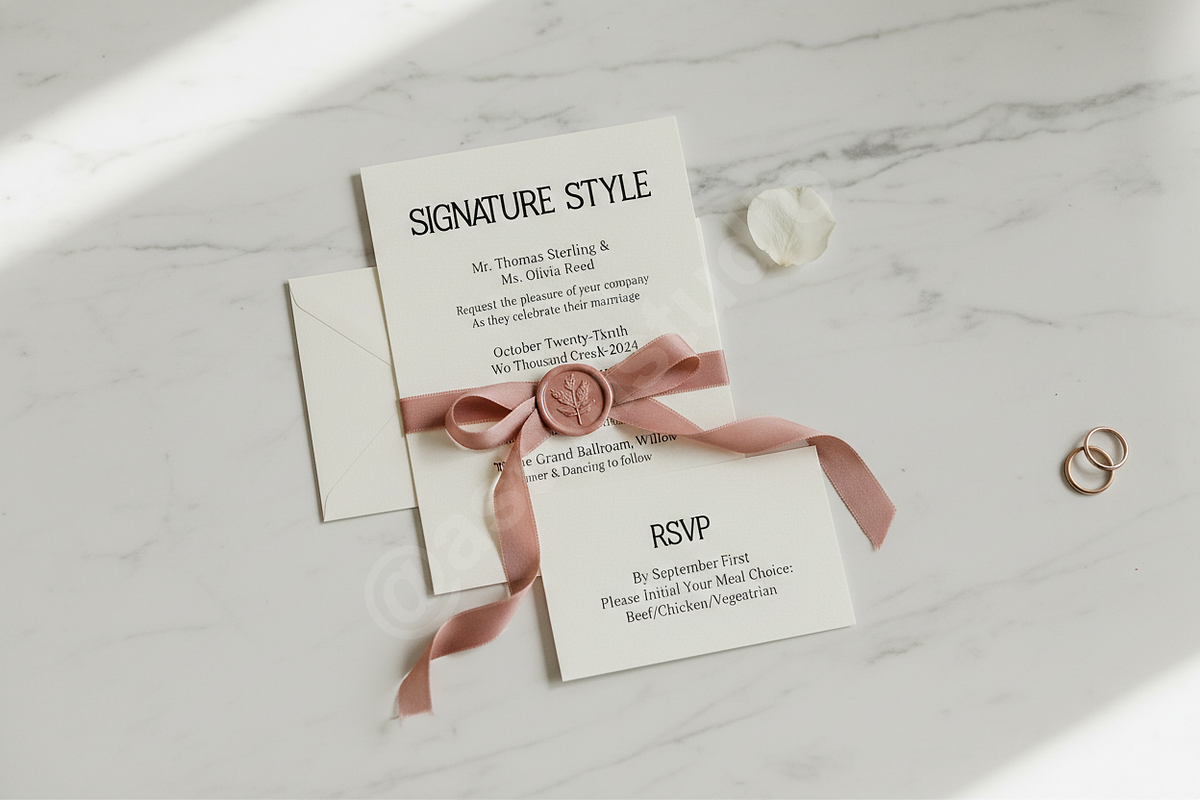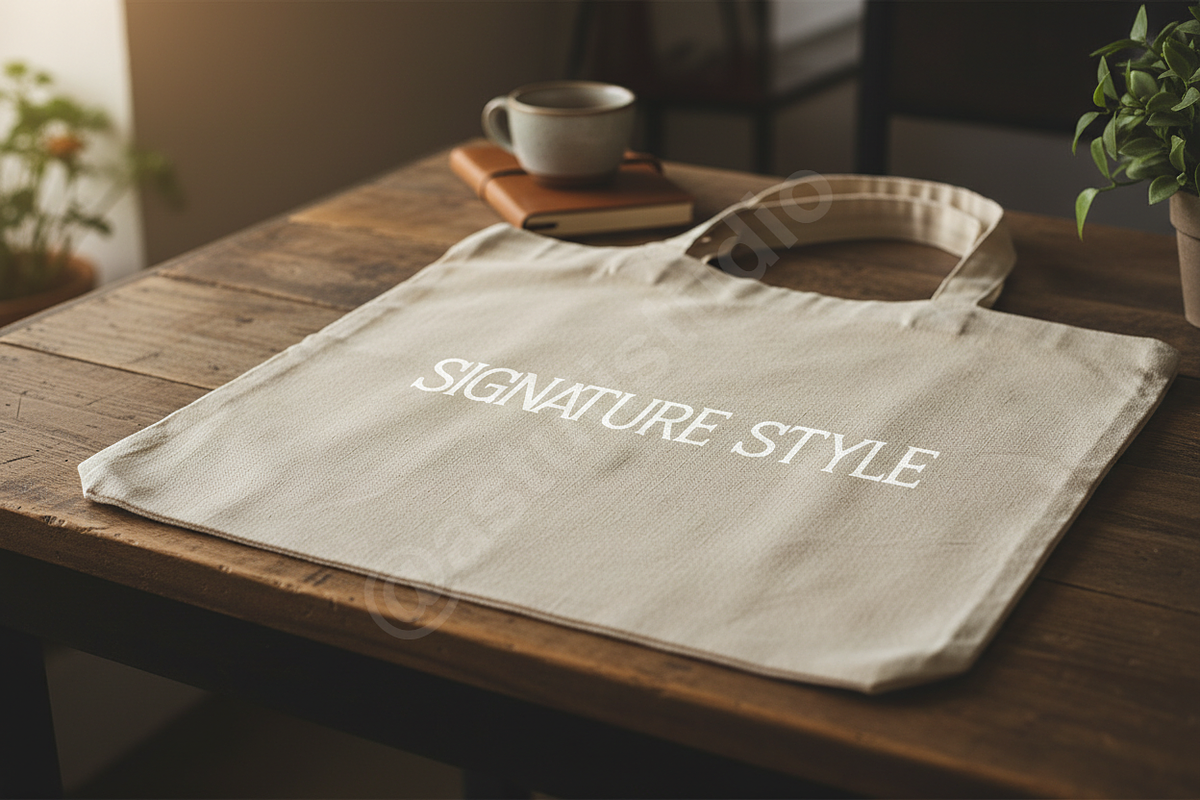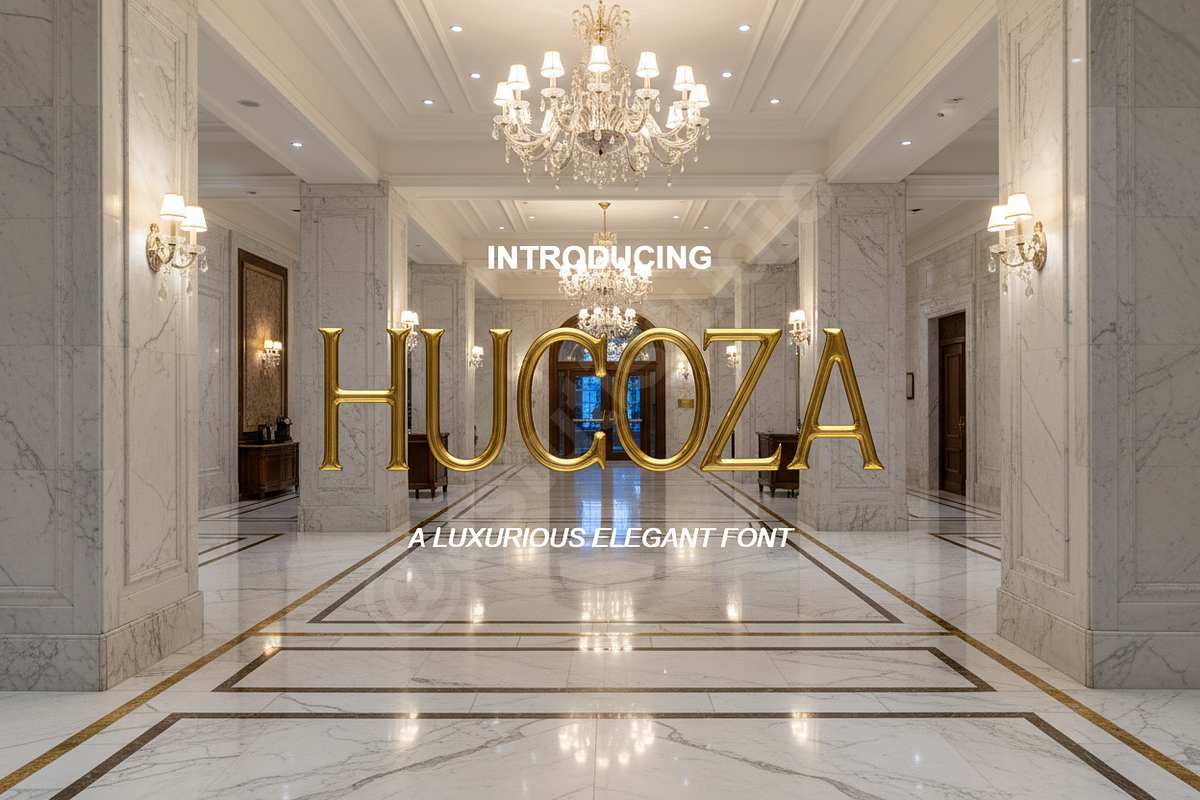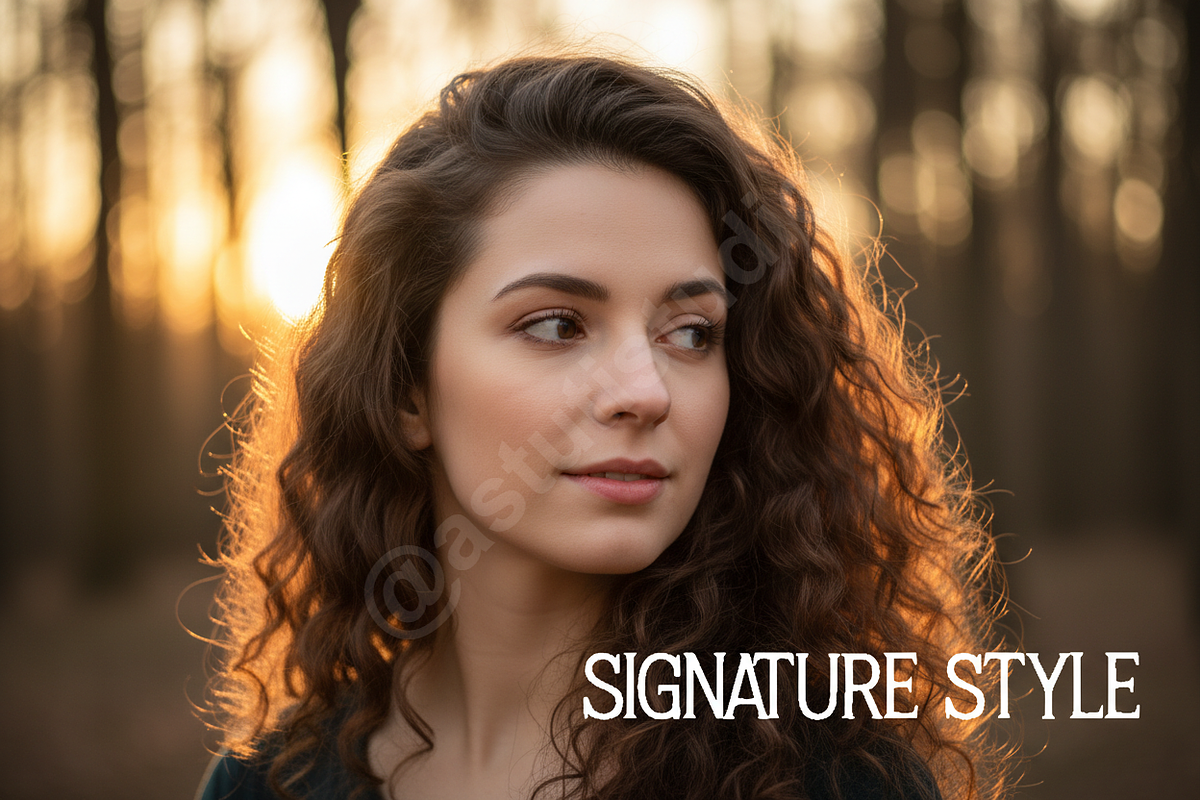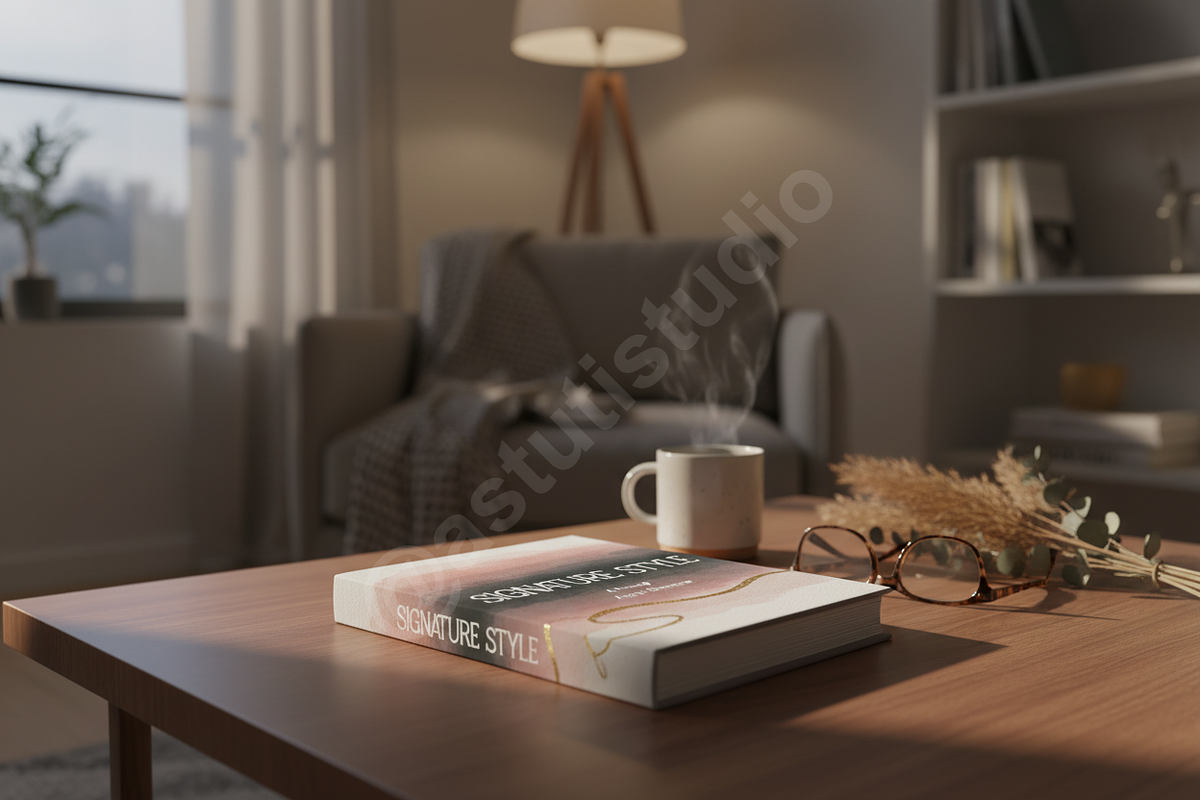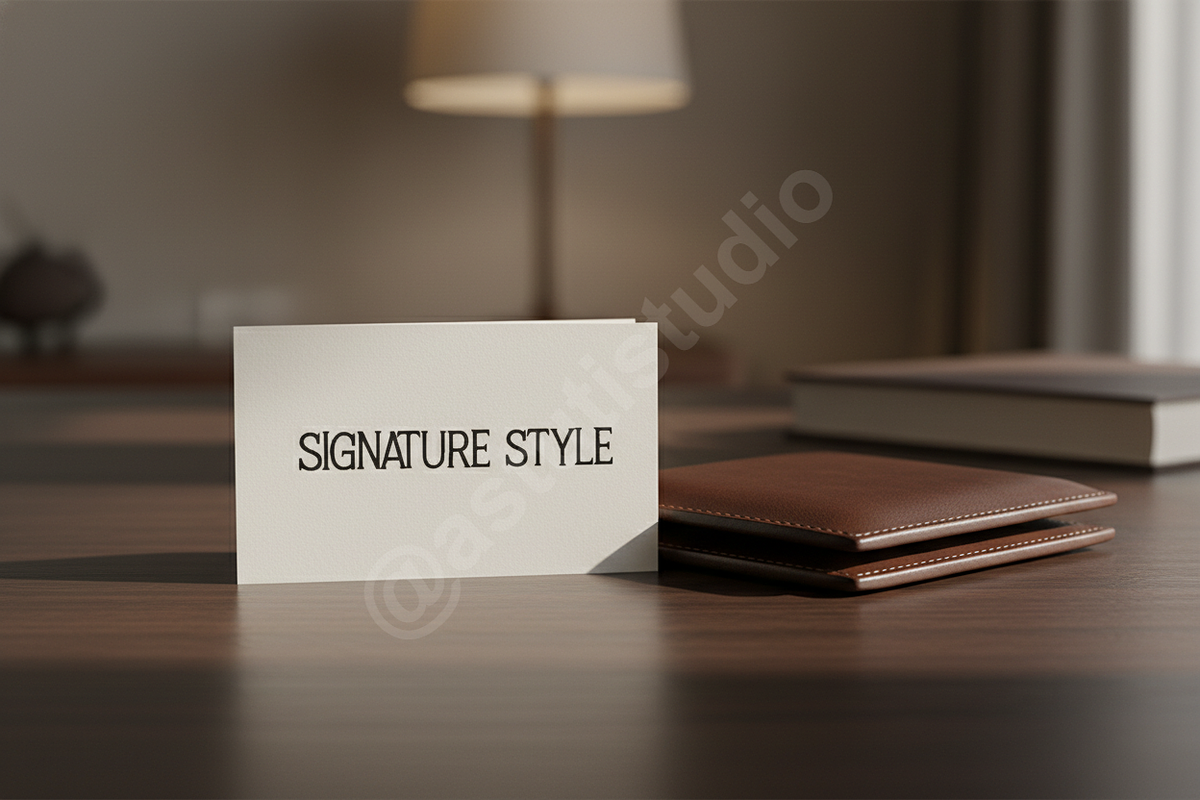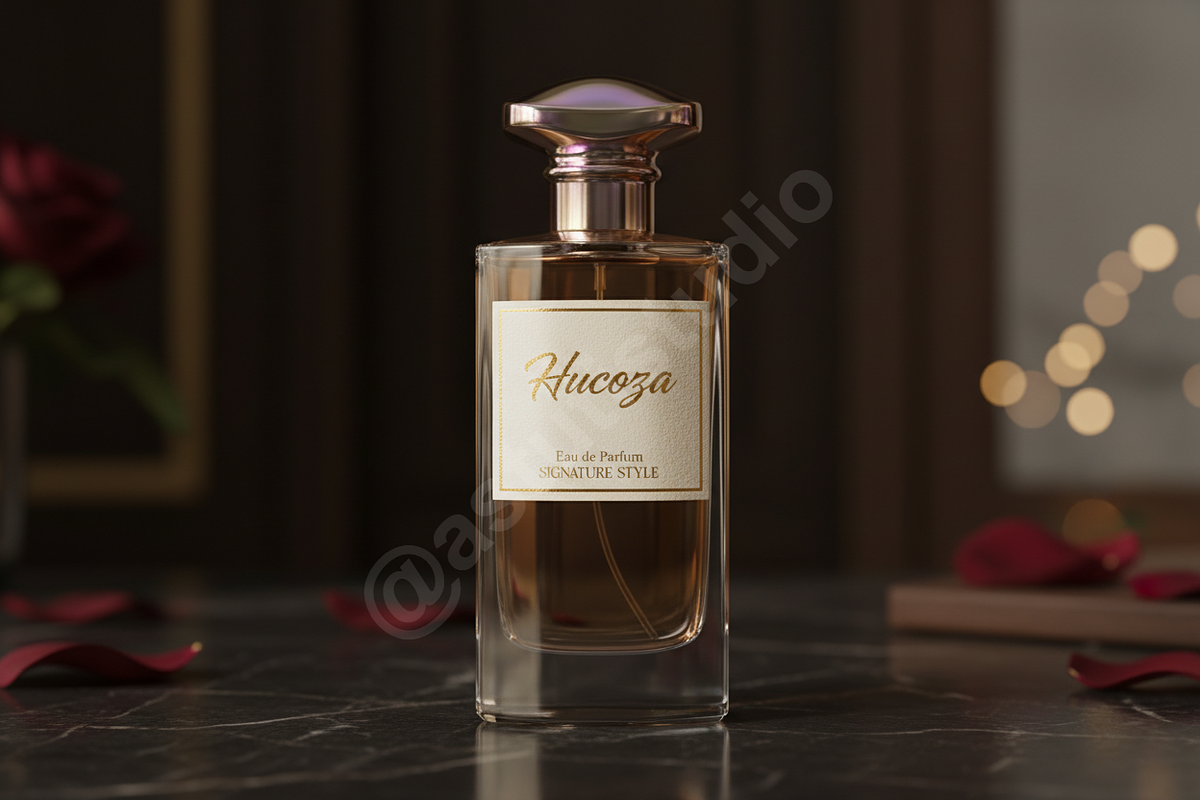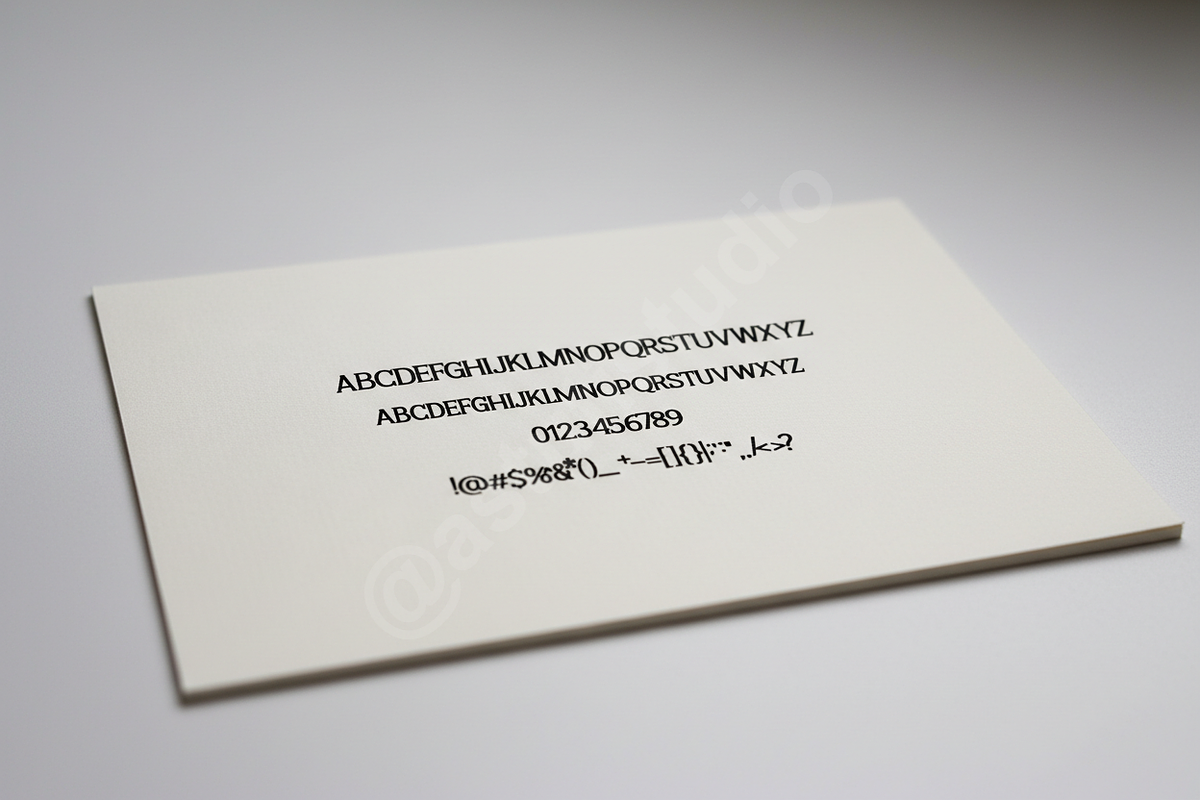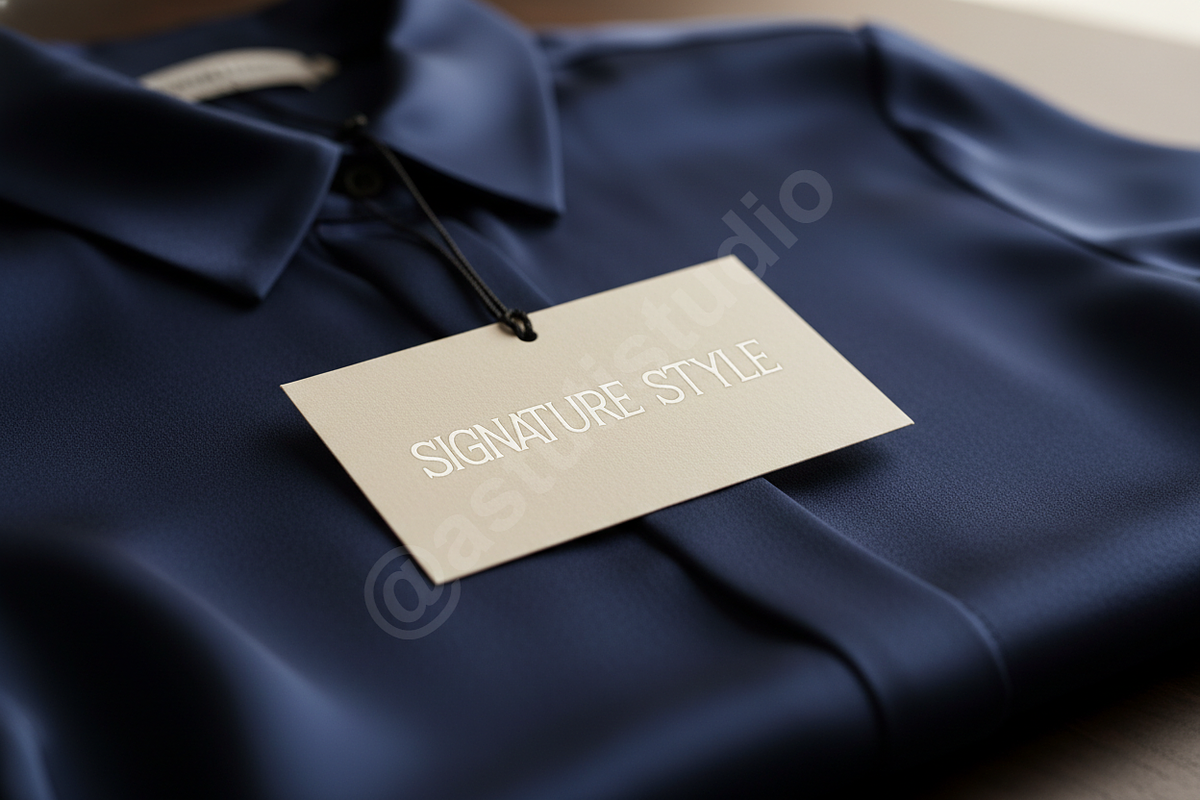
Hucoza - Modern Luxury Serif Font
HUCOZA | AN ELEGANT DISPLAY SERIF
Hucoza is a premium serif font designed for sophistication and high-end aesthetics. With its refined curves and balanced proportions, it brings a touch of timeless elegance to any creative project. This typeface was meticulously crafted to bridge the gap between classic editorial style and modern minimalist branding.
- Luxury branding and identity systems
- High-fashion editorial layouts and magazine covers
- Sophisticated social media content and advertising
- Premium packaging and stationery design
- Minimalist website headers and wedding invitations
- Distinctive high-contrast letterforms
- Extensive collection of ligatures for custom looks
- Stylistic alternates for creative flexibility
- Precise kerning for professional typography
- Full character set including numbers and punctuation
- Comprehensive glyph set